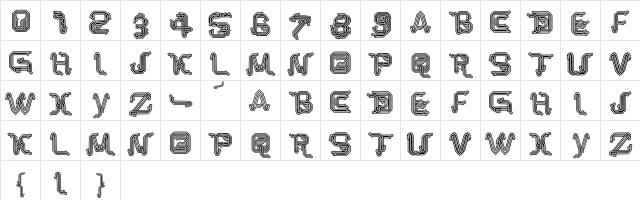
Park Tech CG Regular
Design Context for Park Tech CG Typeface
Park Tech CG channels digital-age aesthetics through its sharp, structured letterforms — ideal for brands that want to signal innovation.
Pro Tip: Try Park Tech CG with generous letter-spacing in UI labels and navigation — the geometric forms benefit from room to breathe.